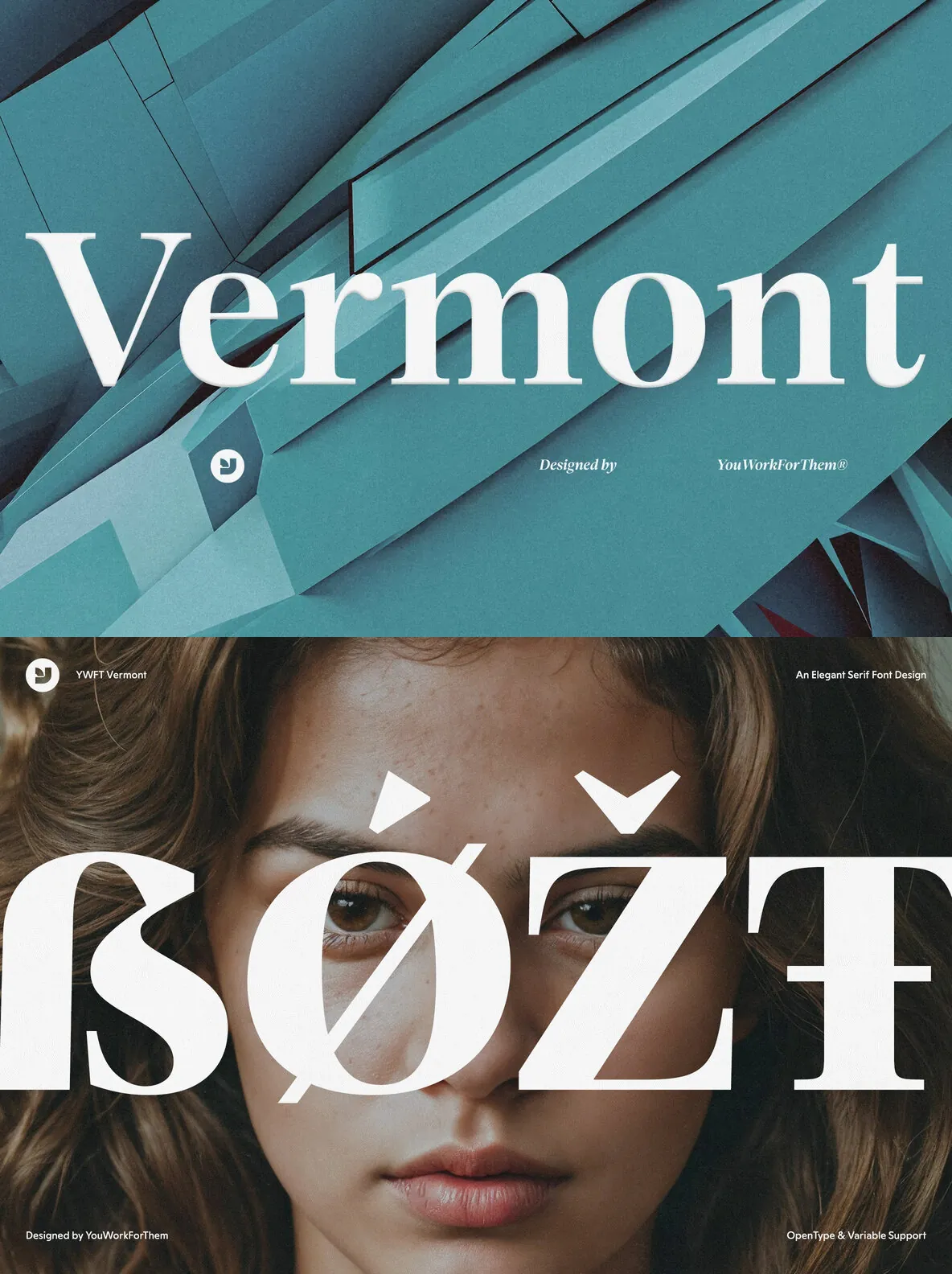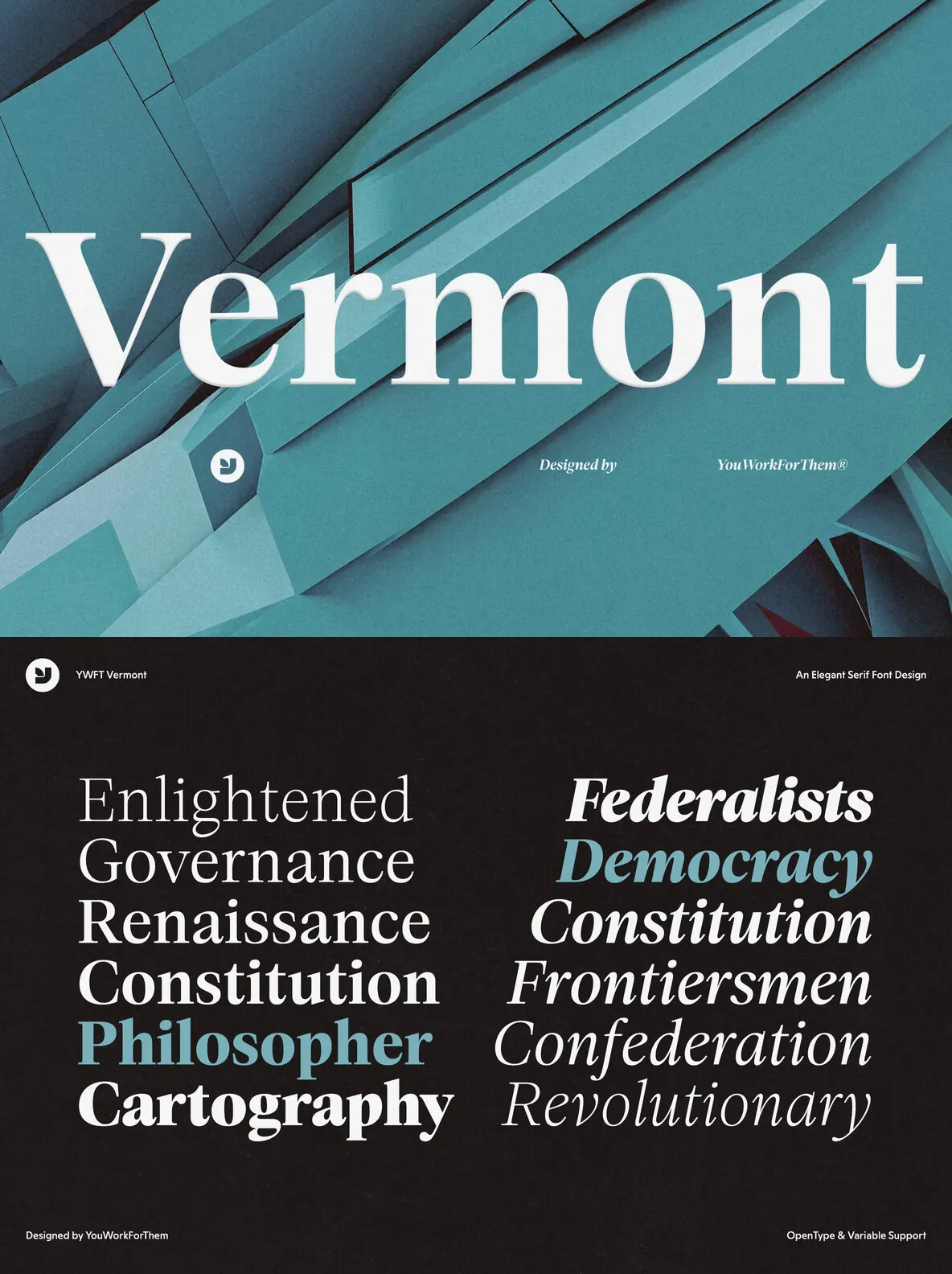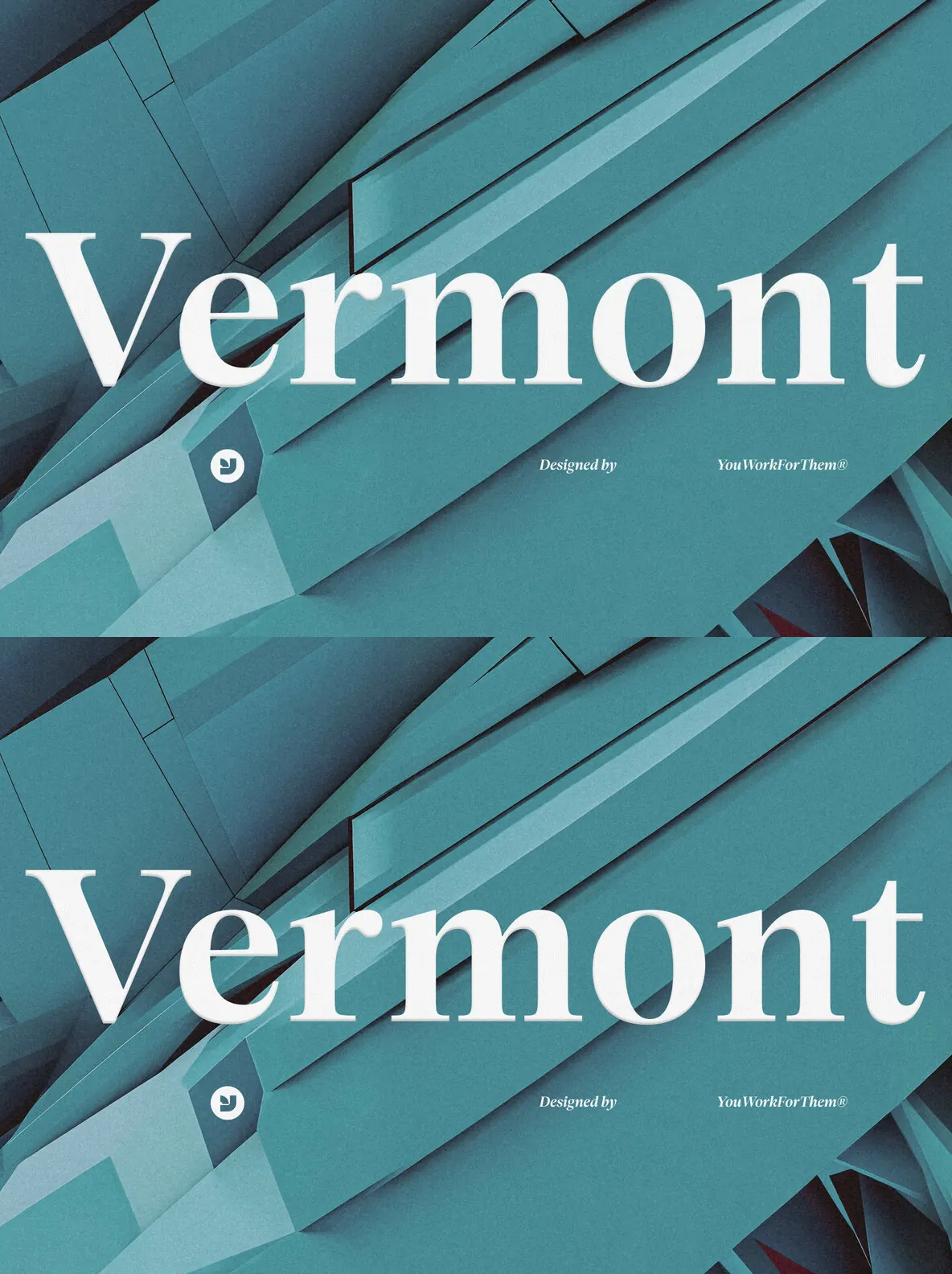
Embrace the Historical Elegance of Vermont
Discover Vermont, an exclusive serif typeface at YouWorkForThem, where the rich heritage of American typography meets modern design finesse. This typeface, spanning six styles from Light to Black (plus Italics), is a testament to the elegance of 1700s and 1800s serif fonts. Each style is meticulously crafted, offering over 500 glyphs that present an array of creative opportunities for graphic designers. Vermont’s historical charm is seamlessly integrated with contemporary functionality, making it a perfect choice for diverse design projects.
A Serif Typeface That Speaks Volumes
Vermont’s extensive range of OpenType features, including multiple ligatures, stylistic alternates, and more, allows for unparalleled typographic versatility. Its design pays homage to the classic American style font, capturing the essence of an era where typography was as much an art as a means of communication. Ideal for both corporate and creative applications, Vermont excels in bringing a sense of authenticity and sophistication to your work. Its sharp serifs and elegant curves are designed for high readability, making it a go-to choice for corporate serif needs in business communications, branding, and editorial designs.